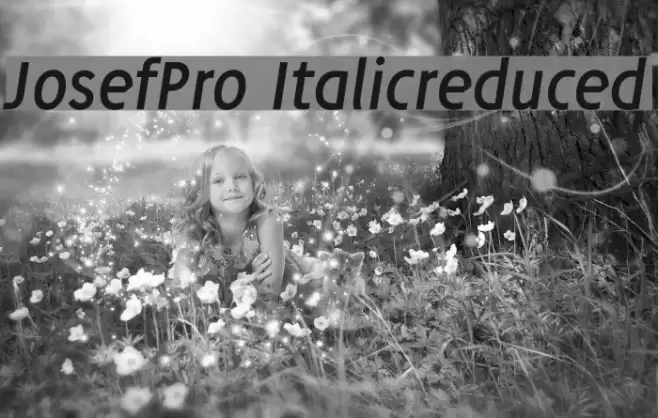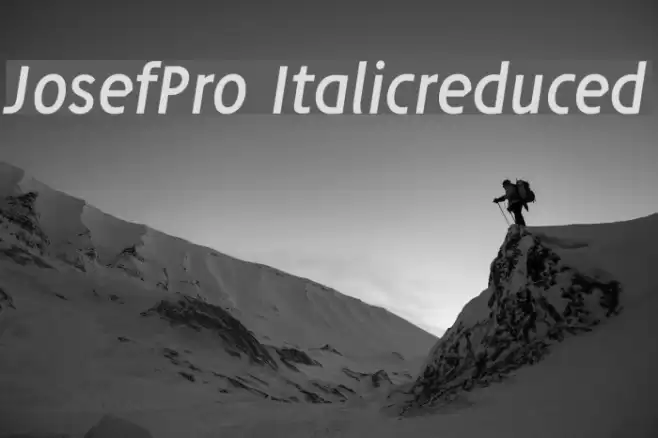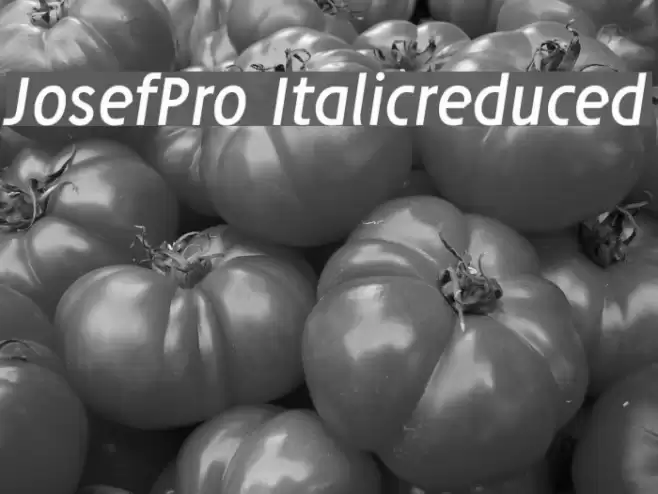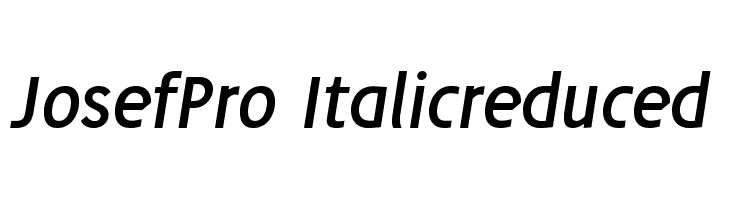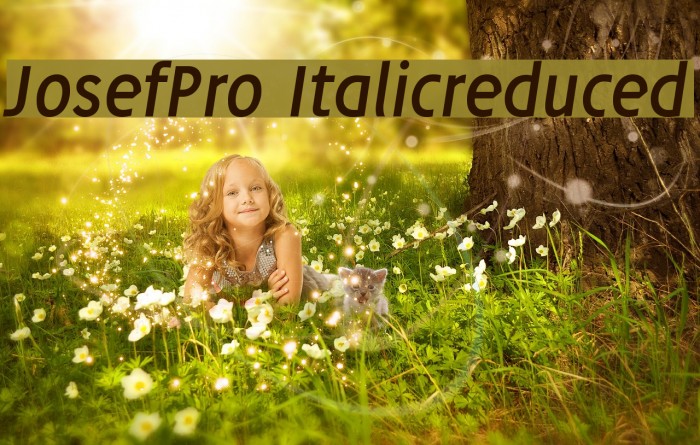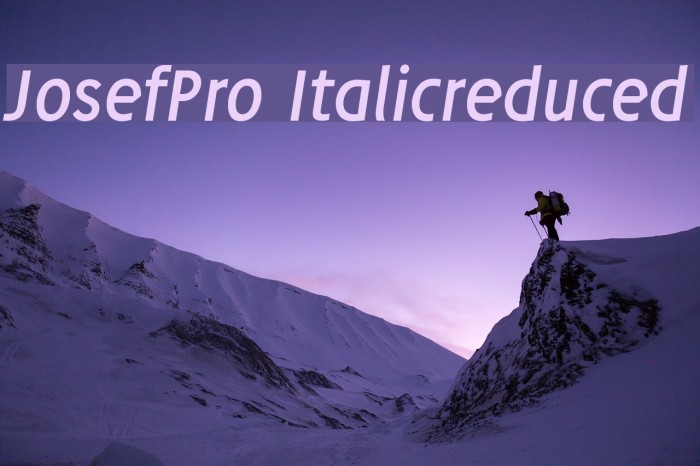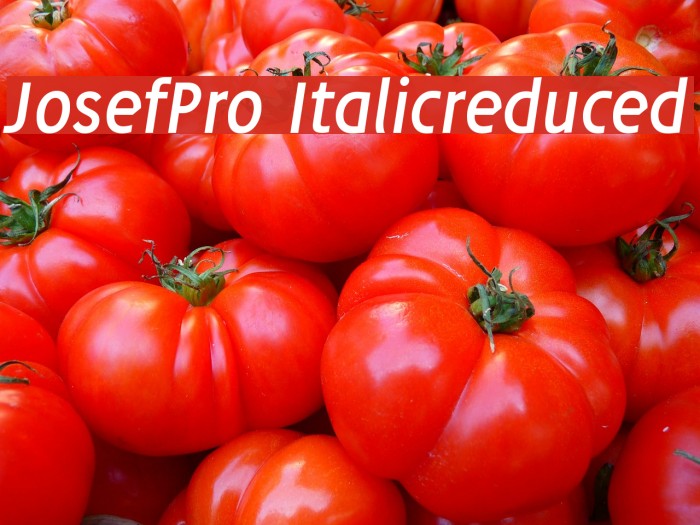
JosefPro-Italicreduced Font
JosefPro-Italicreduced Description
This font features a clean and modern sans-serif style with a slight italic slant, giving it a dynamic and forward-moving appearance. The characters are well-proportioned with a consistent stroke width, contributing to its legibility and versatility. The uppercase letters are bold and assertive, while the lowercase letters maintain a friendly and approachable feel. The overall design is sleek and contemporary, making it suitable for a wide range of applications. The font's italic nature adds a touch of elegance and sophistication, making it ideal for both professional and creative projects.
A modern sans-serif italic font with clean lines and a dynamic style from Uncategorized fonts.
- Proposed Projects: Ideal for branding, advertising, web design, and editorial layouts.